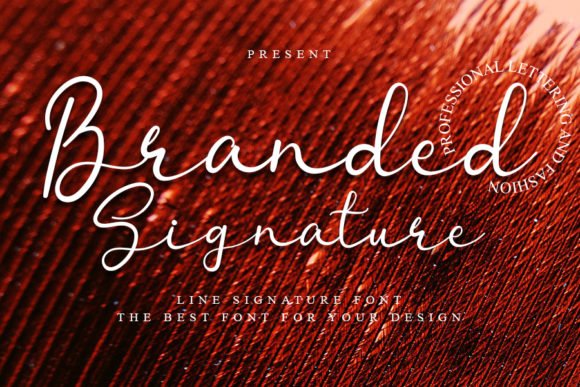
The Power of a Personal Touch: Branded Signature Font
Have you ever been inspired by a beautiful handwritten signature on a card or a piece of art? The way the letters seem to dance across the page, full of character and personality, can be truly captivating. As designers, we strive to create work that speaks to people on an emotional level, and what better way to do that than with a font that feels like a personal touch?
Enter the Branded Signature Font, a delicate and elegant handwritten font that’s designed to add a touch of sophistication to your designs. This versatile font is perfect for creating stunning logos, invitations, and other visual elements that require a unique and personalized feel. Whether you’re a seasoned designer or just starting out, the Branded Signature Font is a valuable addition to your toolkit, offering endless possibilities for creative expression.
Branded Signature Font Key Features
- Unique Hand-Drawn Style: The Branded Signature Font features a distinctive hand-drawn style, giving it a personal and exclusive touch.
- Customizable: The font allows for easy customization, enabling users to adjust the color, size, and style to fit their brand’s identity.
- Extensive Character Set: The font includes a wide range of characters, including uppercase and lowercase letters, numbers, and special characters, making it suitable for various applications.
Branded Signature Font Review
As a designer, I’m always on the lookout for fonts that help me elevate my clients’ brands. The Branded Signature Font caught my eye with its unique blend of elegance and sophistication. Here’s my honest review:
- Customizable: The font is highly customizable, allowing me to tweak the style to fit my client’s brand identity.
- High-quality design: The font’s design is clean, modern, and well-crafted, making it perfect for various design applications.
Branded Signature Font: A Practical Application Guide
Alternatives to Branded Signature Font for Designers
1. Custom Typography System